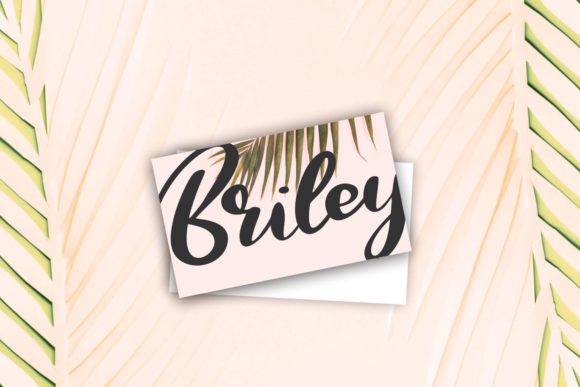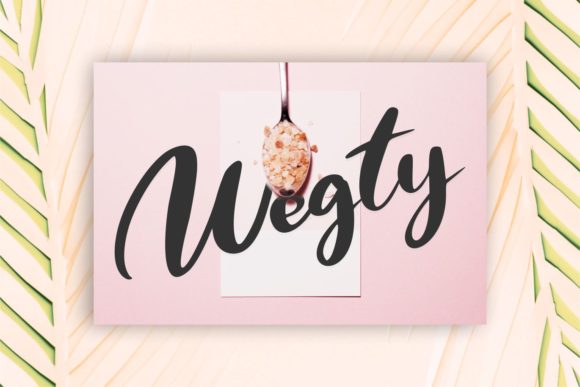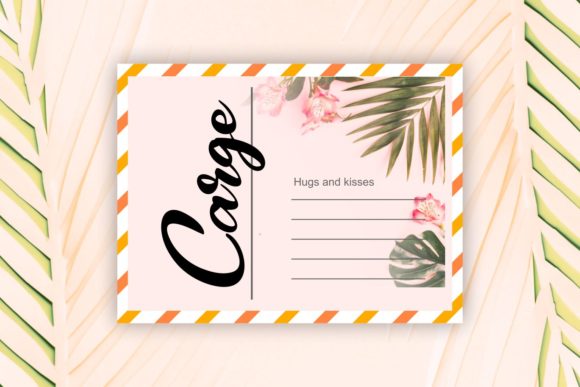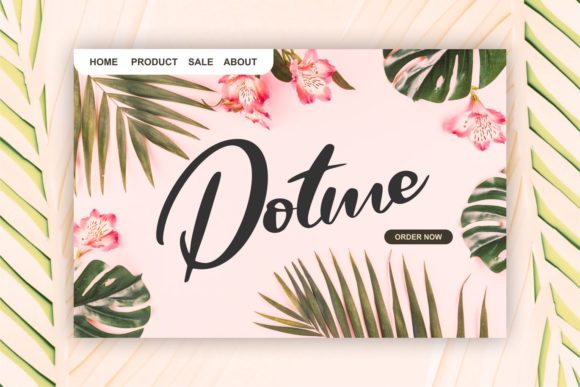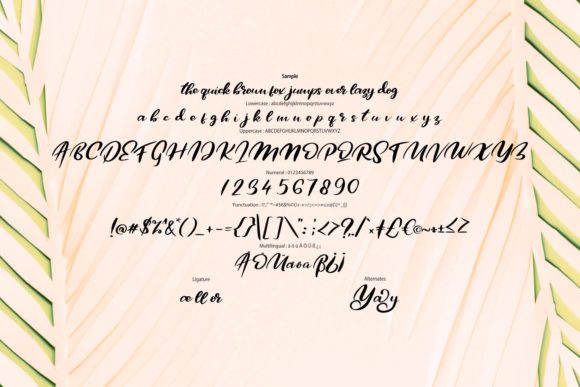
HomeScript FontsQors Font Script Fonts Qors Font FacebookXPinterestWhatsApp Qors Font Poster 2 Qors Font Poster 3 Qors Font Poster 4 Qors Font Poster 5 Qors Font Poster 6 About Qors Font Qors is a gorgeous script featuring a unique calligraphic style. It will turn any design idea into a true standout! DOWNLOAD ON CREATIVE FABRICAThis font is sold and delivered by Creative Fabrica. Font Canyon may earn a commission if you buy through this link. People also explored Alistair Font Balinese Font Glantte Font Butterfly Duo Font Aphotic Font Merry Christmas Font Handmade Font White Pastel Font Ramban Bayem Font 286 0 TagsQors Font Previous articleMosem FontNext articleAlaycia Font LEAVE A REPLY Cancel reply Comment: Please enter your comment! Name:* Please enter your name here Email:* You have entered an incorrect email address! Please enter your email address here Website: Save my name, email, and website in this browser for the next time I comment. Personal Use Free Solaria Personal Use Free Read more about this font True Love Personal Use Free Read more about this font Single Sleeve Personal Use Free Read more about this font Fribash Personal Use Free Read more about this font BLOG Exploring Font Trends Shaping Communication in the Digital Era Fonts, like all design elements, are subject to trends. They play a crucial role in communicating a brand's personality,... 5 Fonts That Will Dominate Design Trends in 2026 The 10 Best Handwriting Fonts to Add Personality to Your Designs Free vs Paid Fonts: Why Investing in Premium Fonts Is Worth It